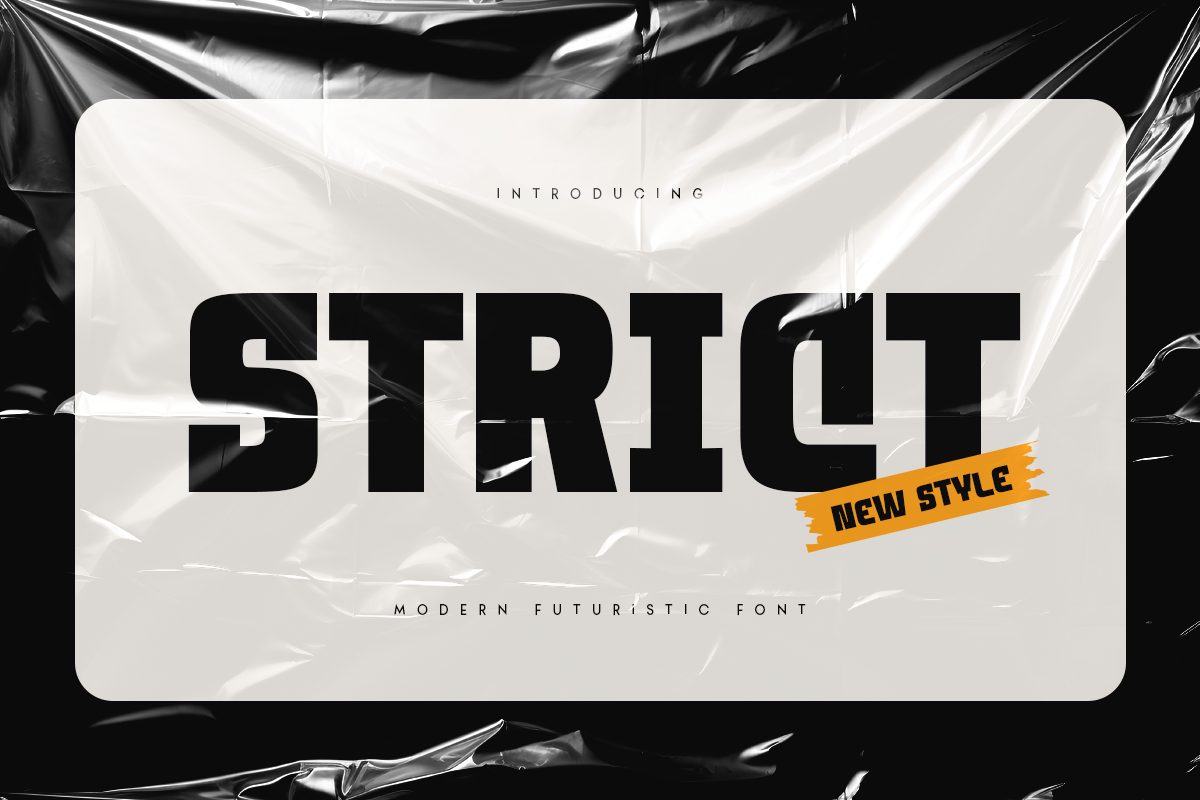
Strict - Modern Neo Brutalism Font
Make a bold statement with Strict, a modern neo-brutalism sans serif font that commands attention. This well-balanced typeface combines minimalist design principles with brutalist aesthetics, creating a unique and iconic sans serif that's perfect for contemporary design projects. The font's clean geometry and strong character make it ideal for creating distinctive brand identities and eye-catching visual communications. Strict excels in branding projects, logo design, poster layouts, social medi...